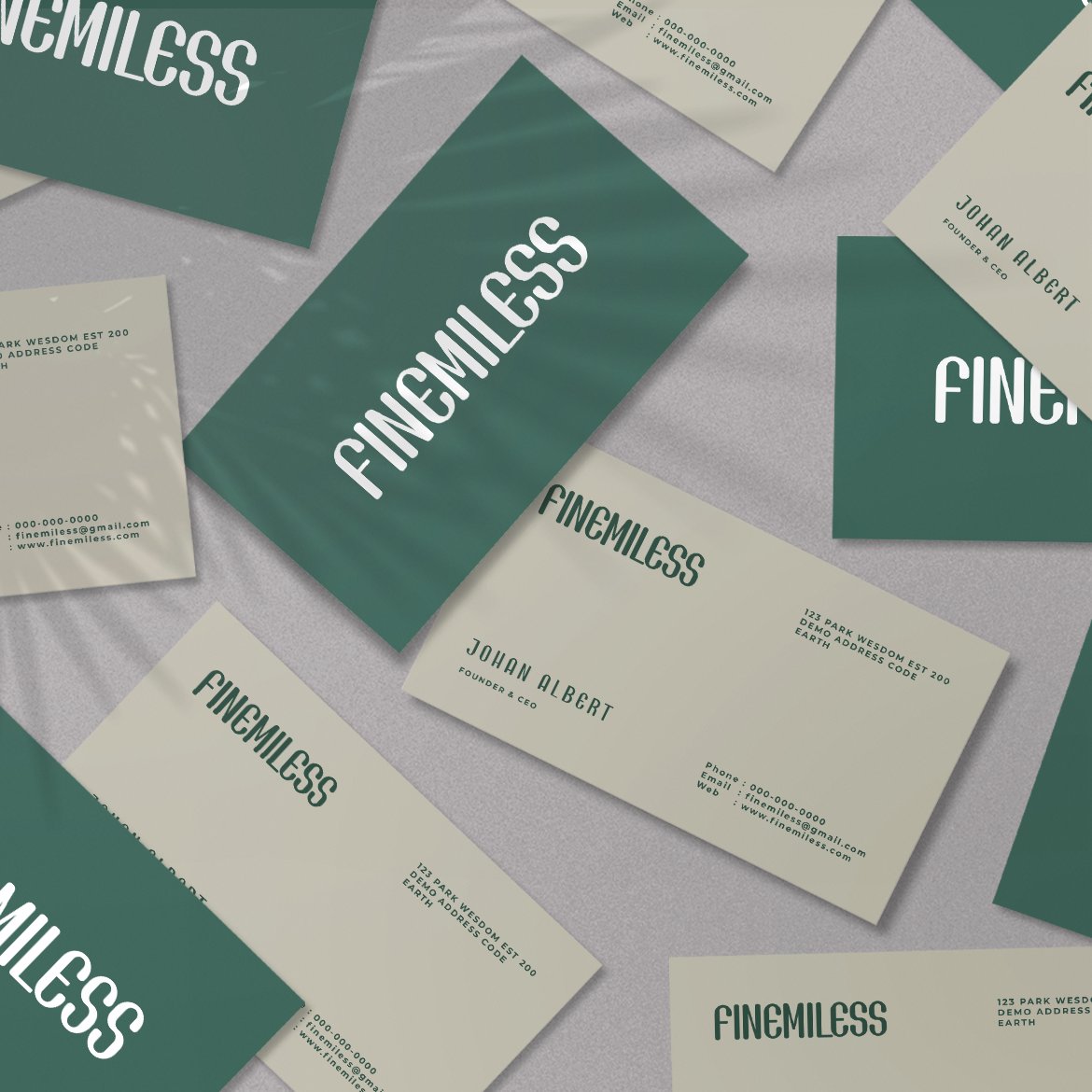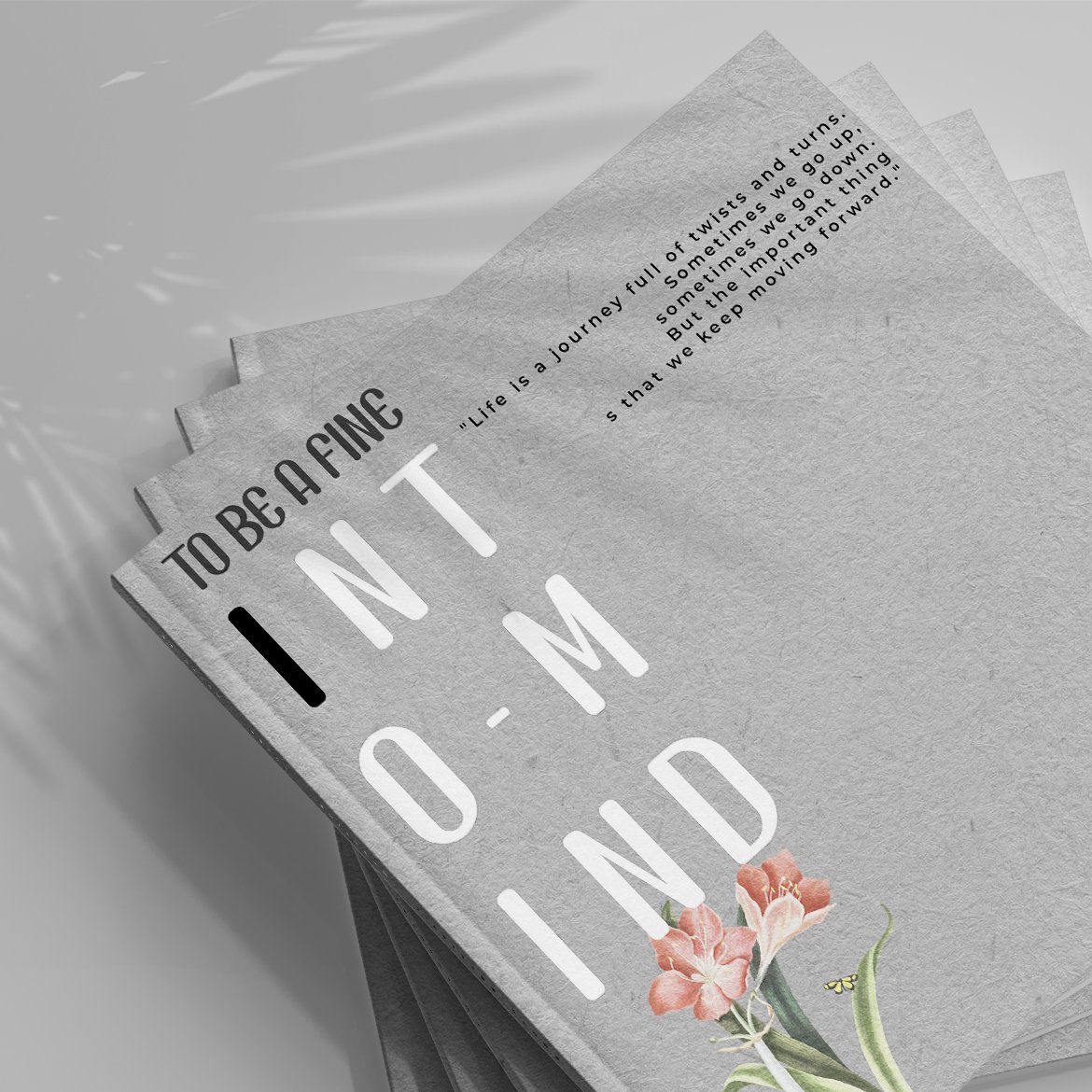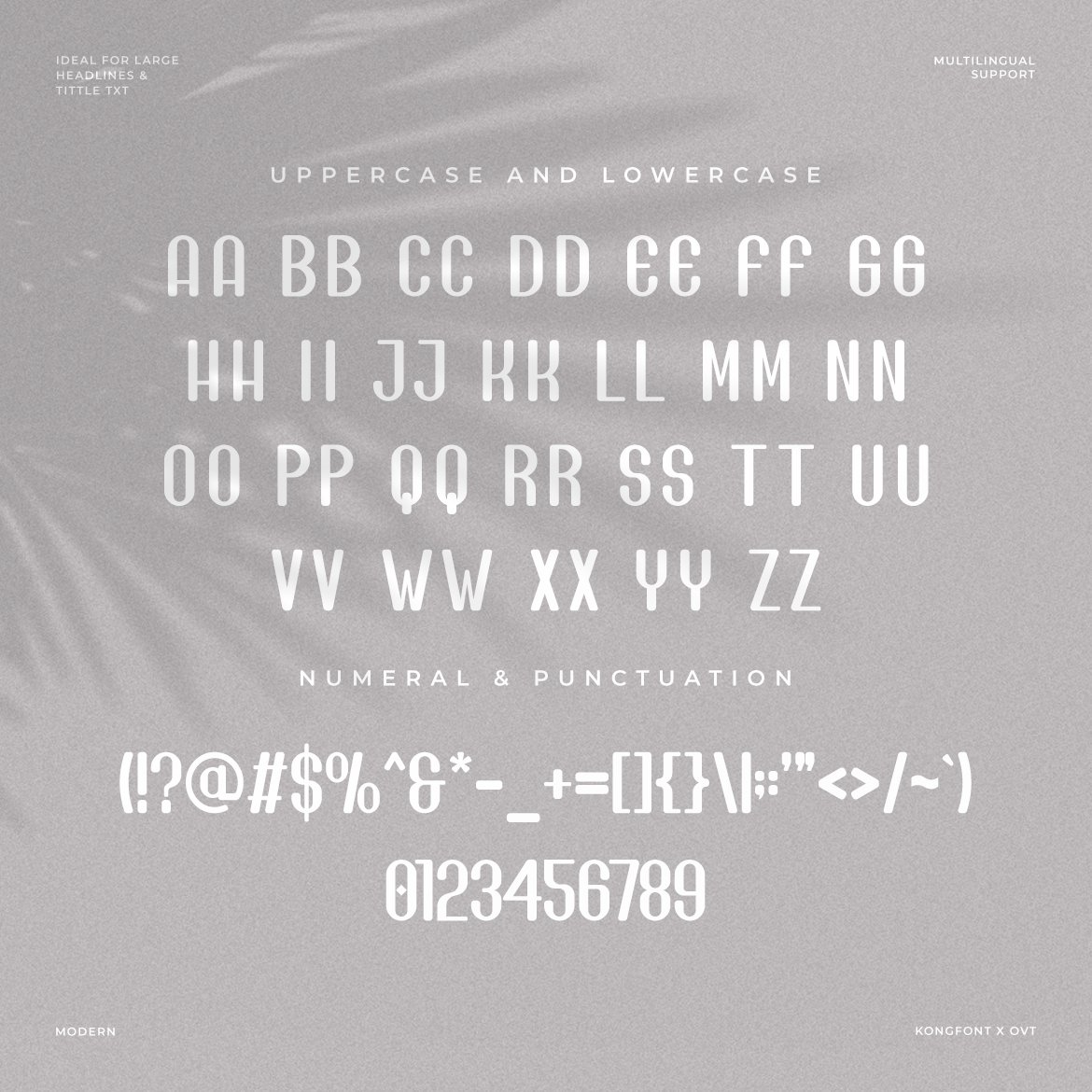
Pearce – Modern Sans Serif Font
Pearce’s sleek lines and simple forms make it an excellent choice for branding, digital interfaces, and print media. It provides effortless legibility and a professional appearance, making it suitable for corporate communications, sophisticated web design, and stylish advertising campaigns. The font includes a variety of weights and styles, comprehensive numerals, punctuation, and extensive multilingual support, ensuring its versatility and adaptability across different mediums and languages.